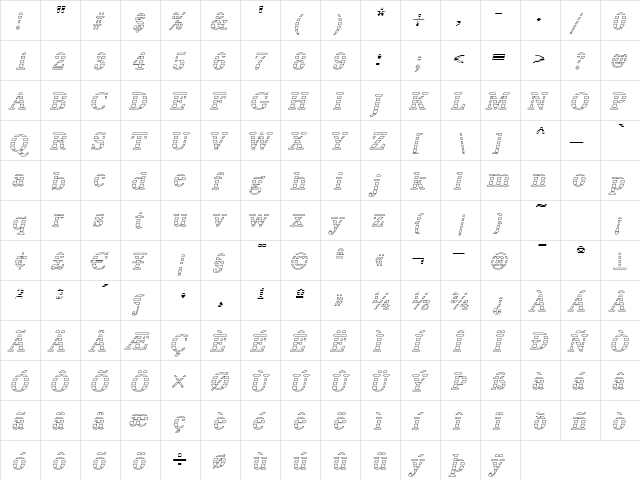
IrisBeckerGradoN-Medium Italic Font Preview
IrisBeckerGradoN-Medium Italic
Design Context for IrisBeckerGradoN-Medium Typeface
IrisBeckerGradoN-Medium offers clean, dependable letterforms without strong stylistic allegiance, making it a practical choice for designers who need flexibility. The dynamic lean of this cut emphasises speed and emphasis in any layout.
Pro Tip: Use IrisBeckerGradoN-Medium for emphasis, pull quotes, and subheadings where its slanted energy can add rhythm to the layout.